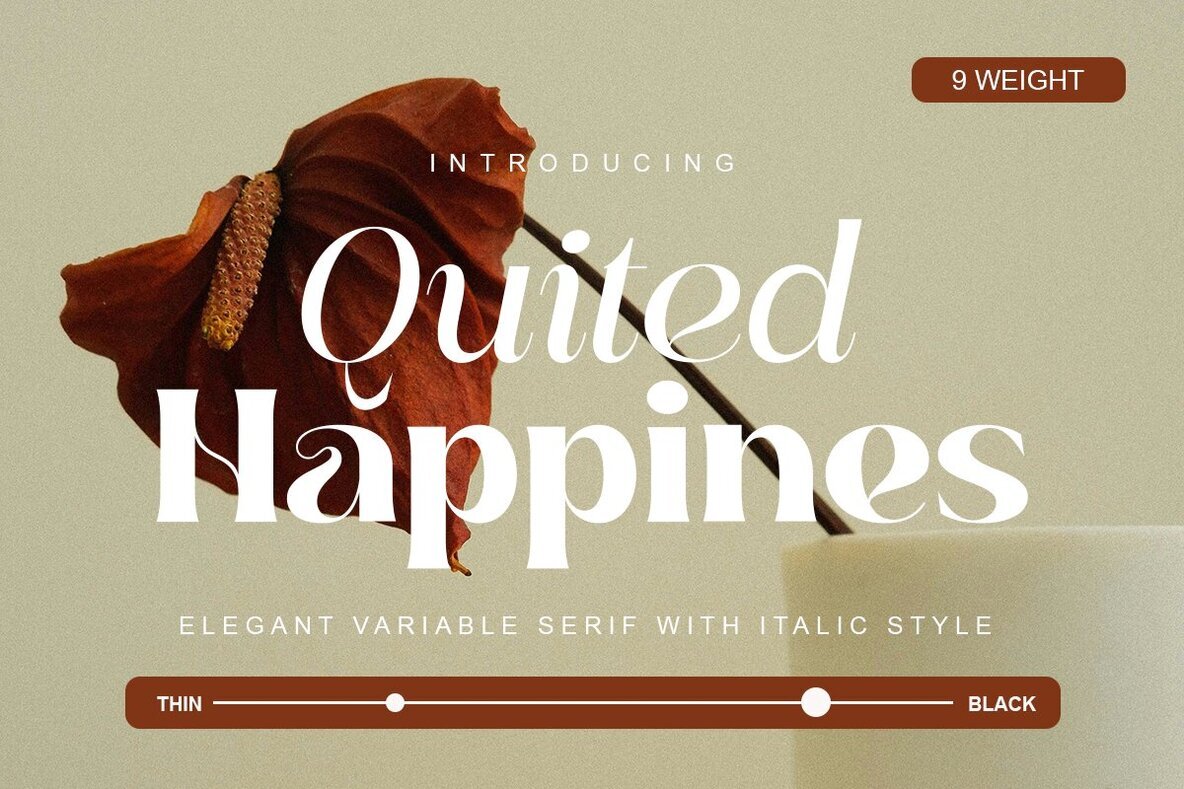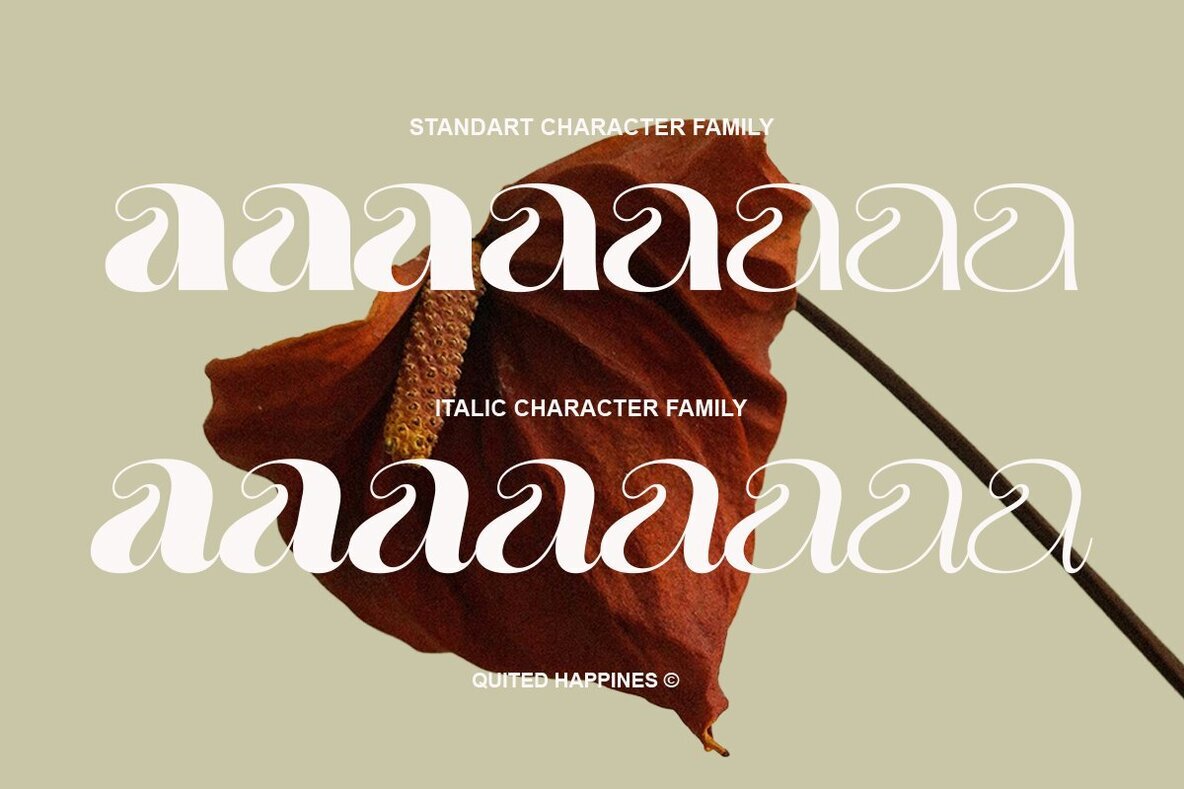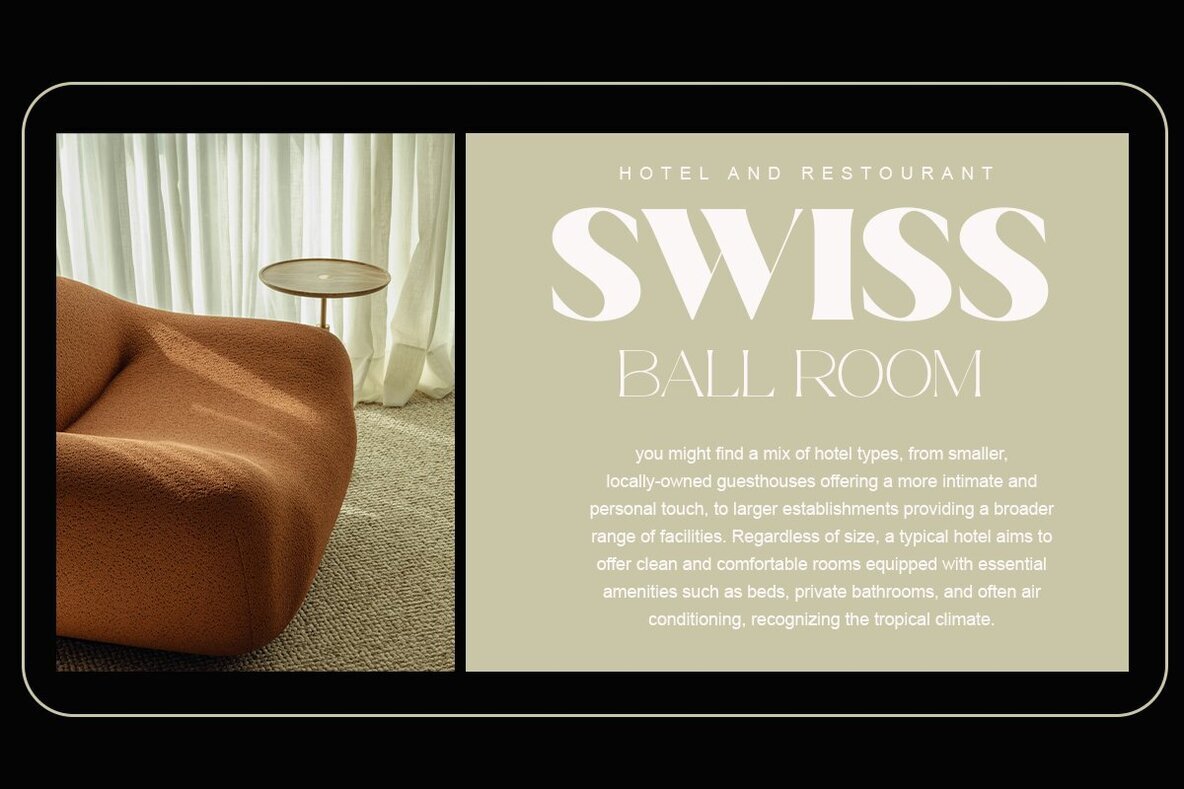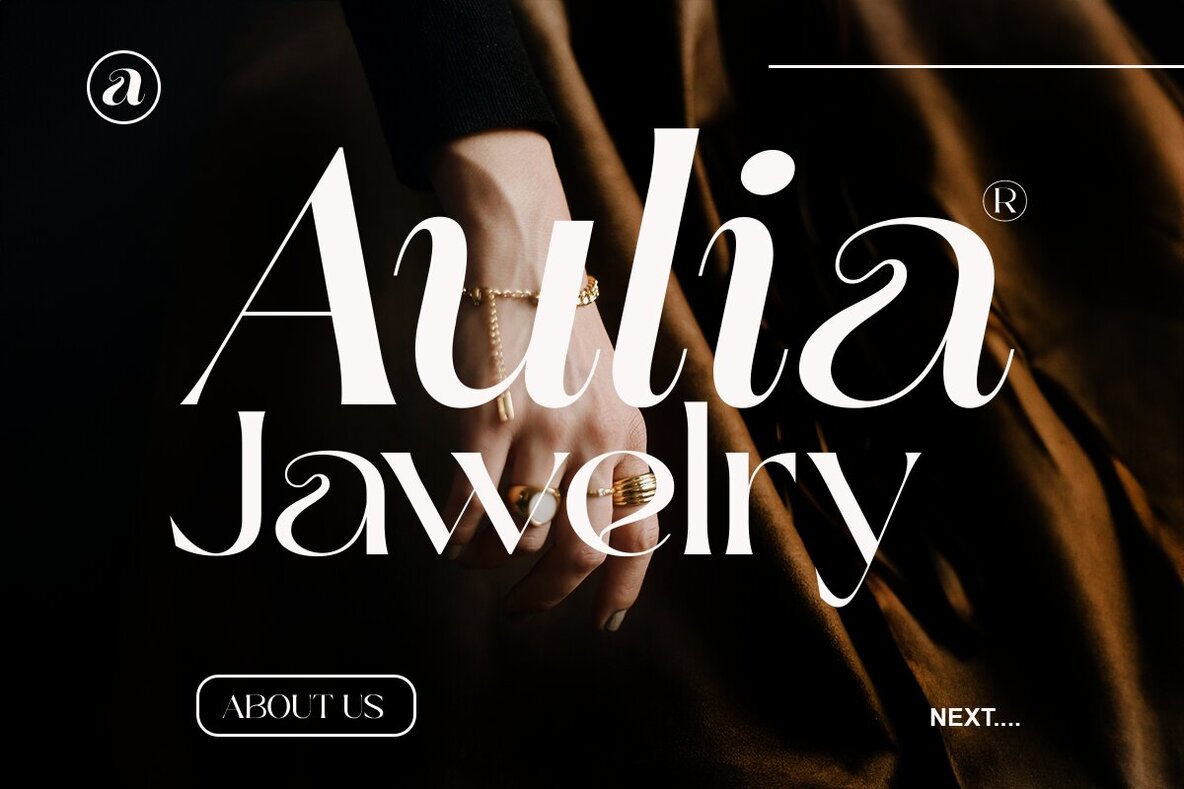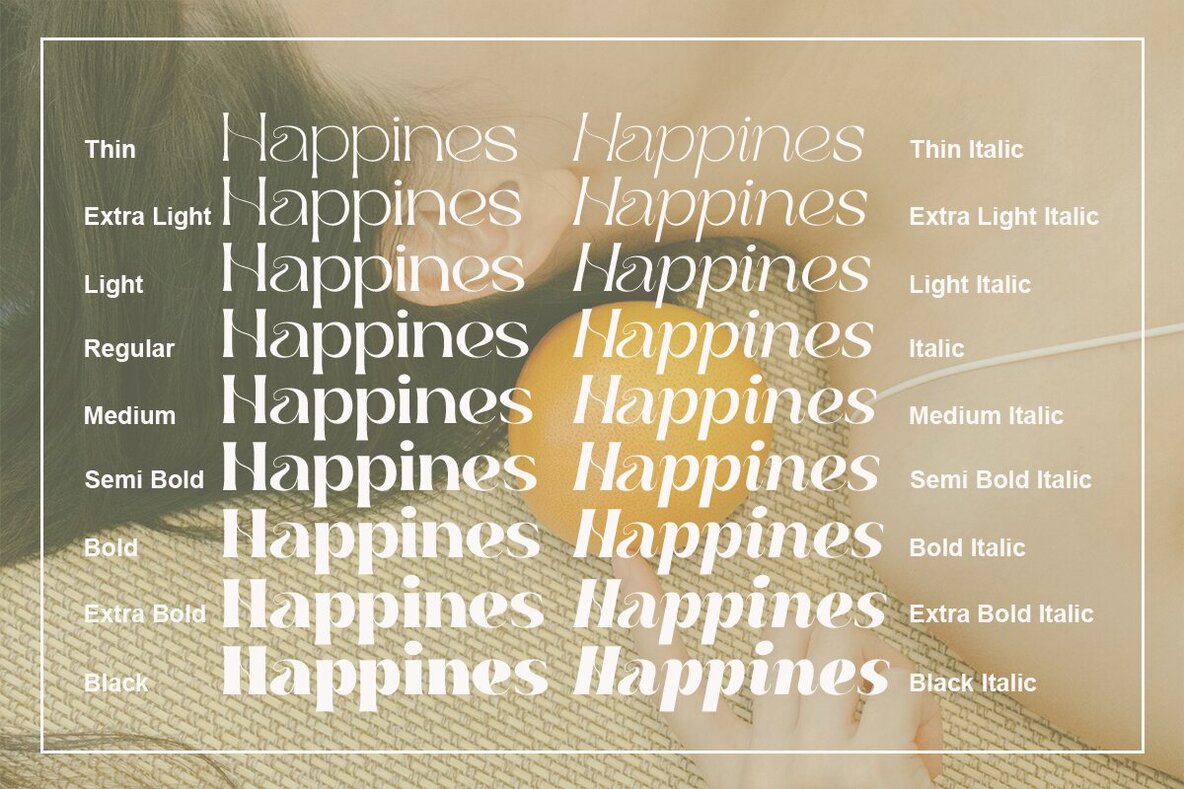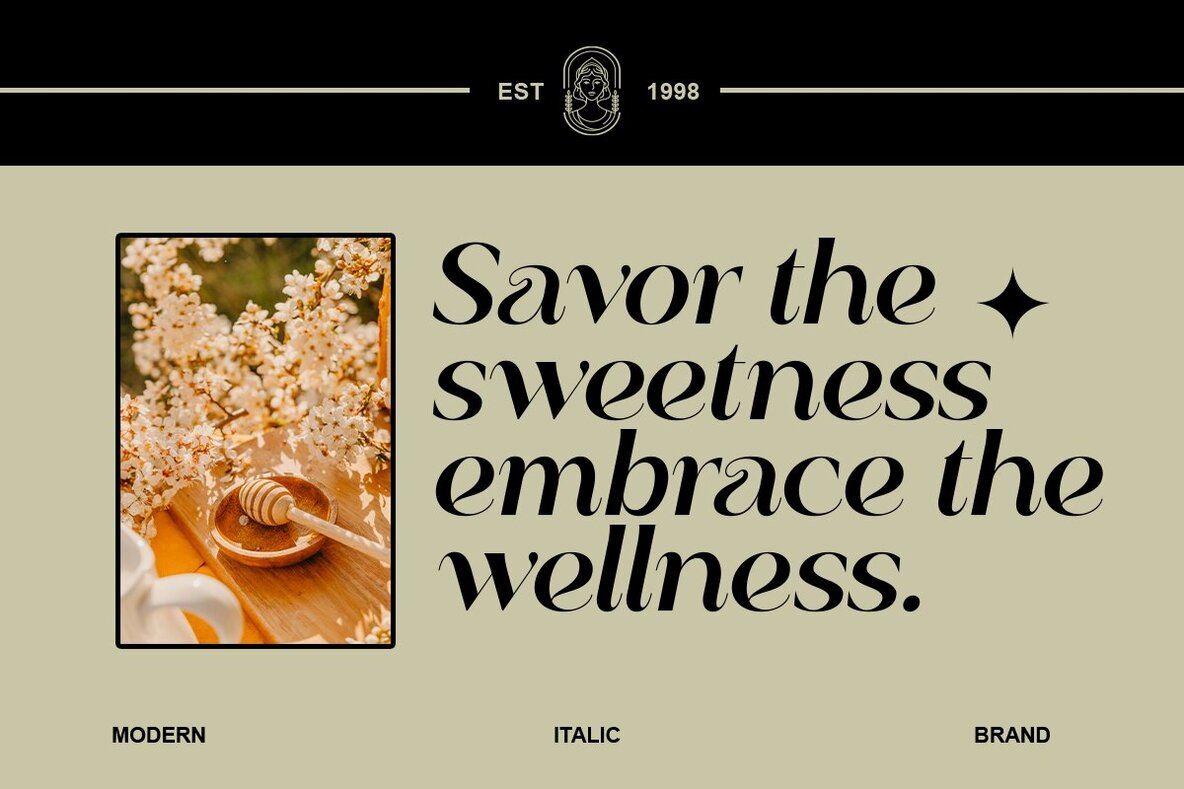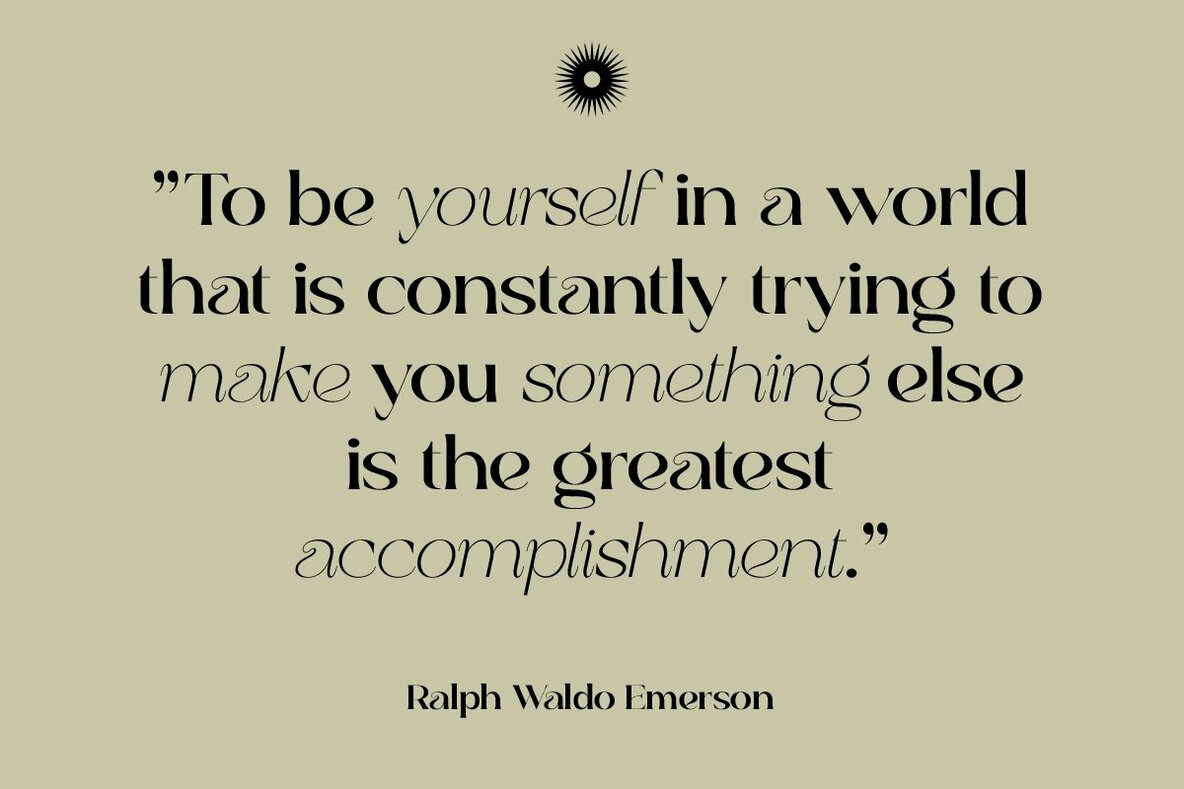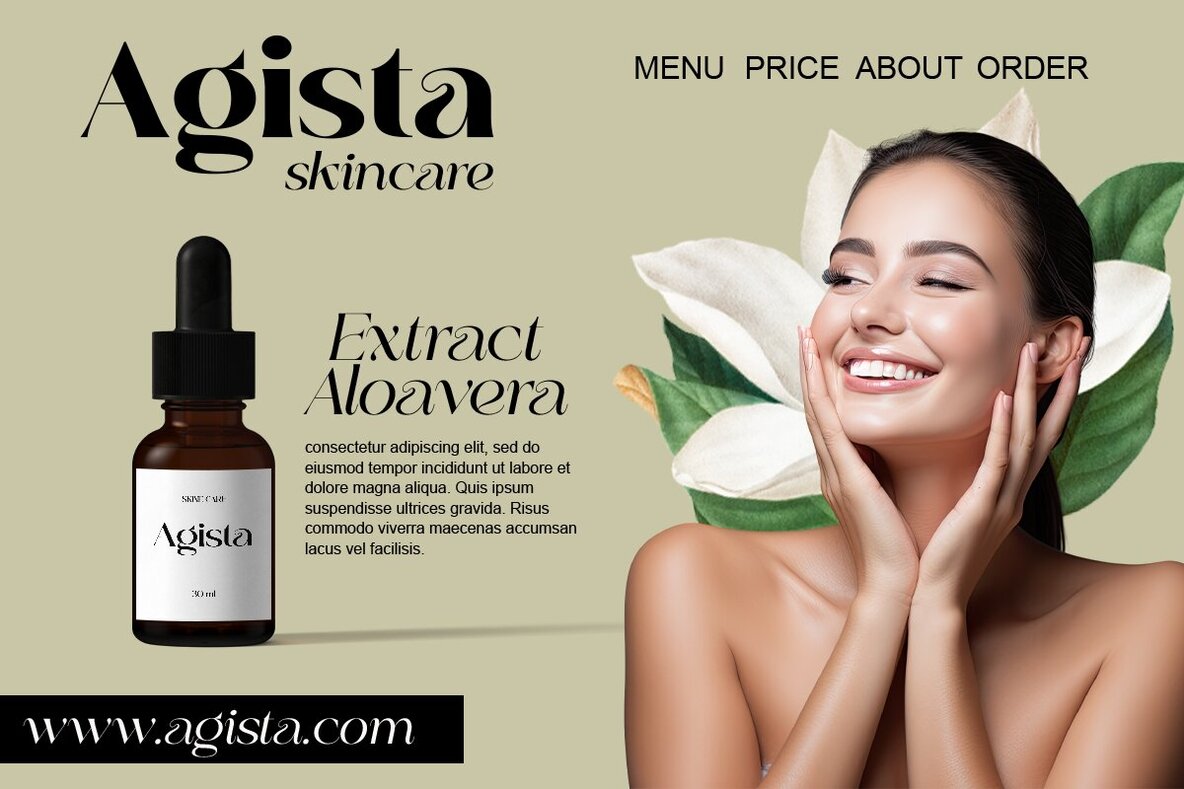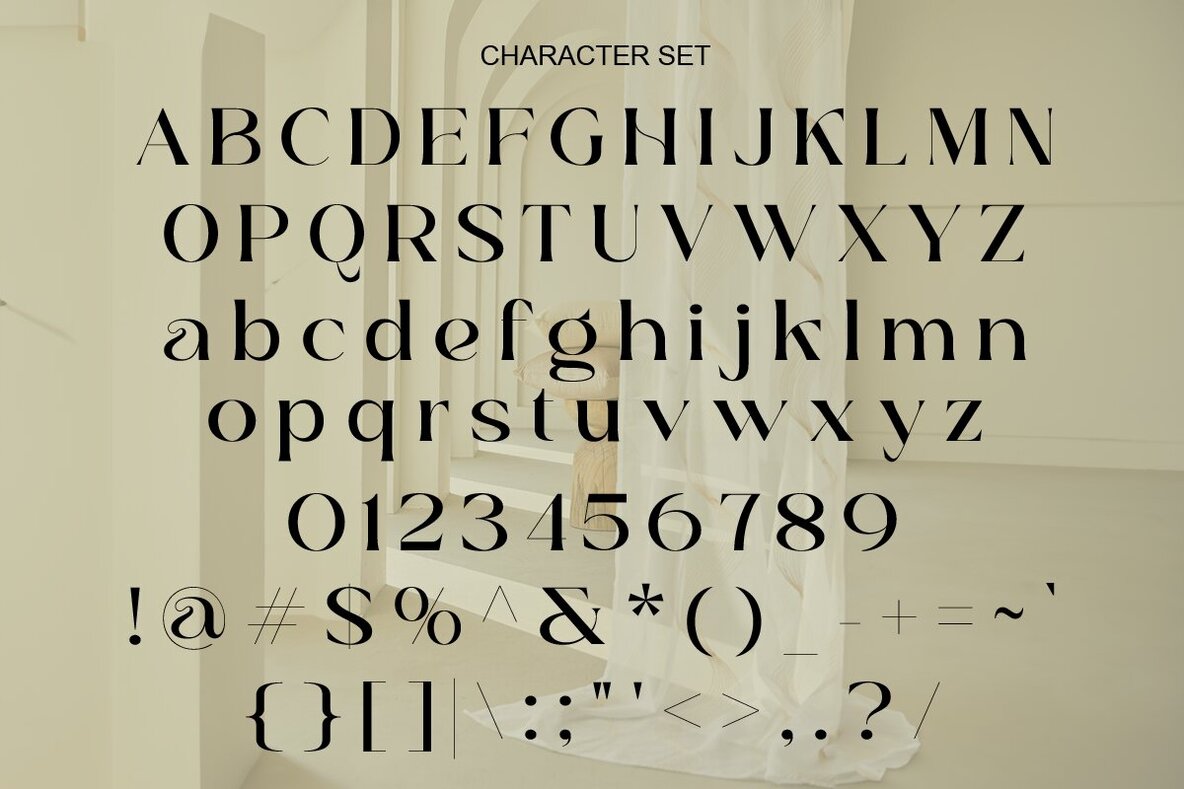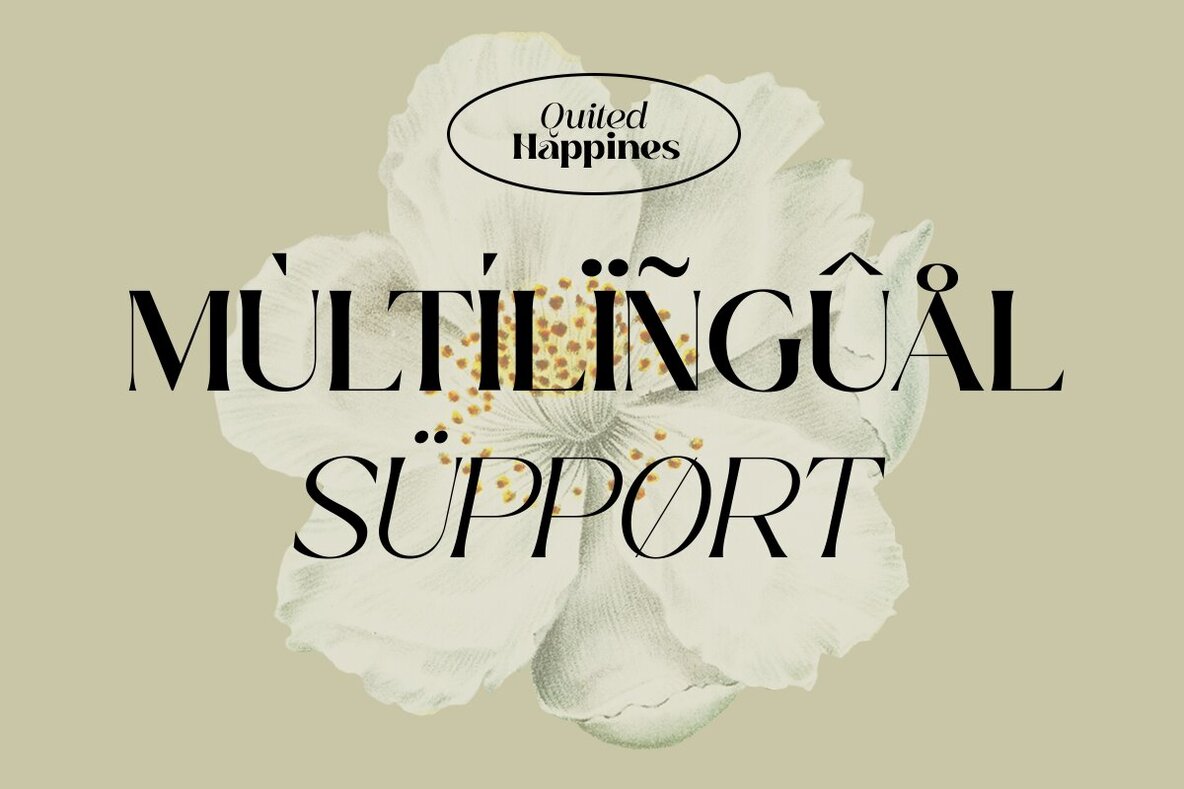
Quited Happines Font
Quited Happines offers a sophisticated 9-variable weight serif font range, available in both regular and italic styles from thin to black. Ideal for delivering a touch of elegance in branding, web design projects, logos, and fashion-related concepts, this typeface strikes the perfect balance between modernity and timelessness. With its warmth and charm, Quited Happines ensures that your designs will stand out with unmistakable refinement.Quited Happines: Versatile Serif Typeface for Elegant Designs